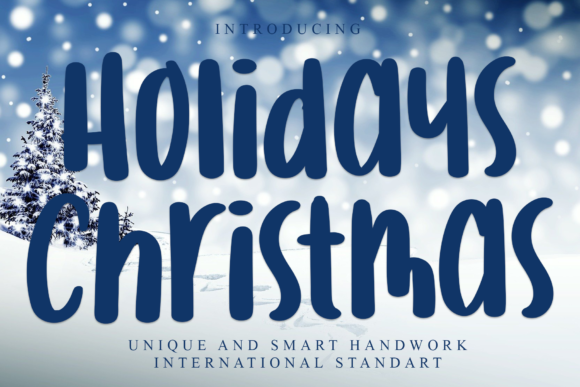
Holidays Christmas Font
Holidays Christmas is a quirky and trendy display font with bubble letters and a lot of potential to make your next design stand out!